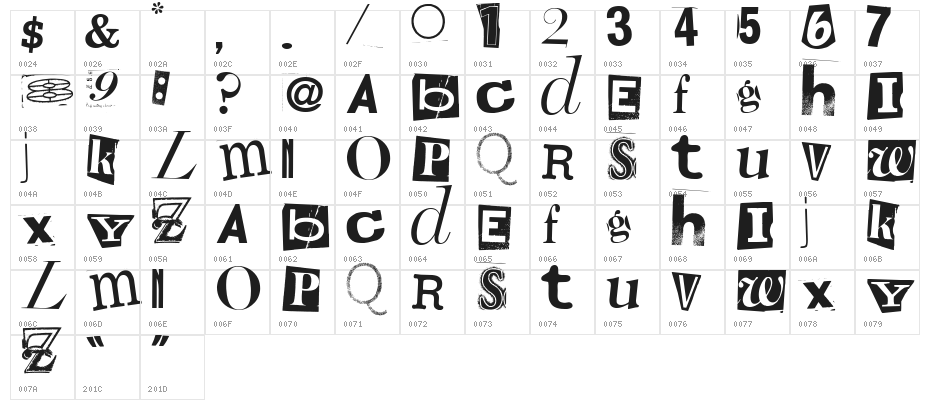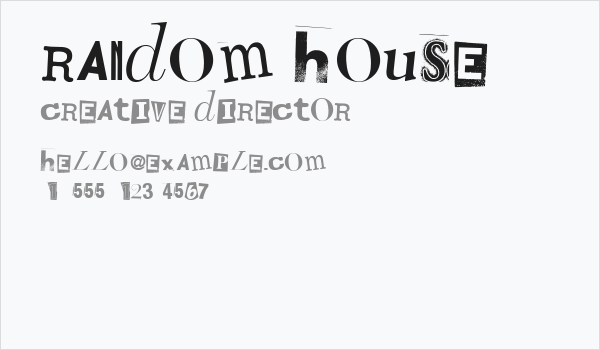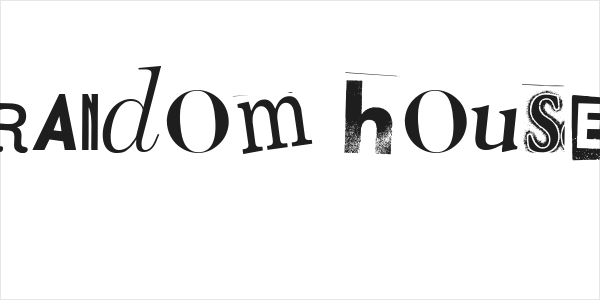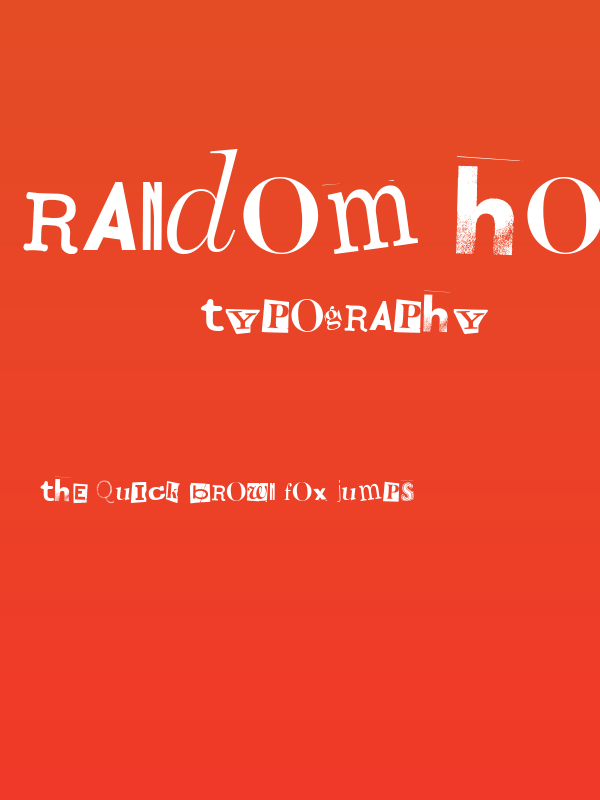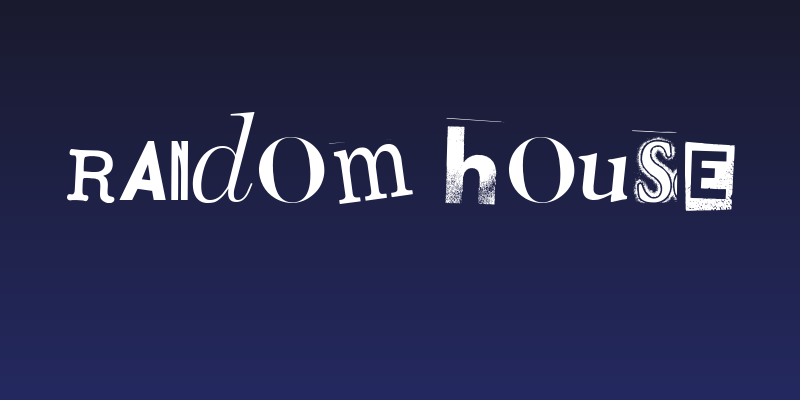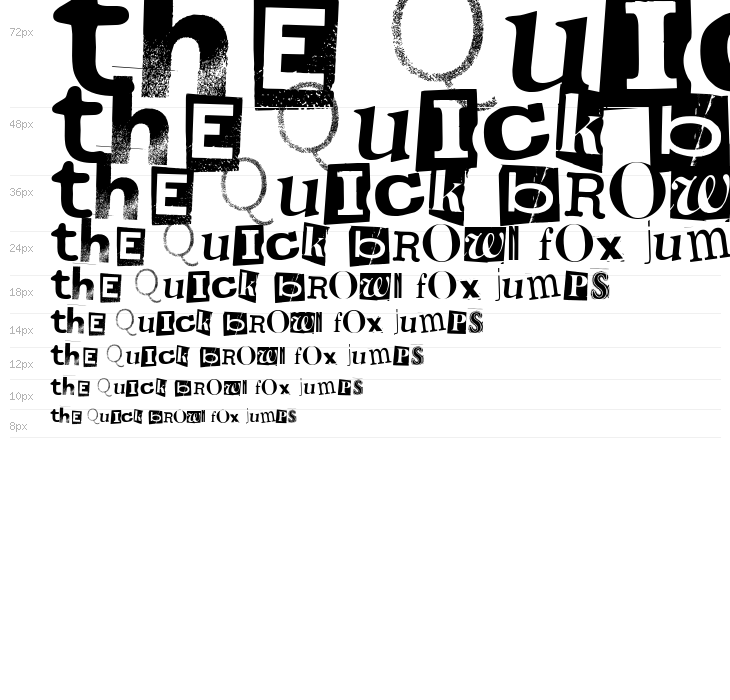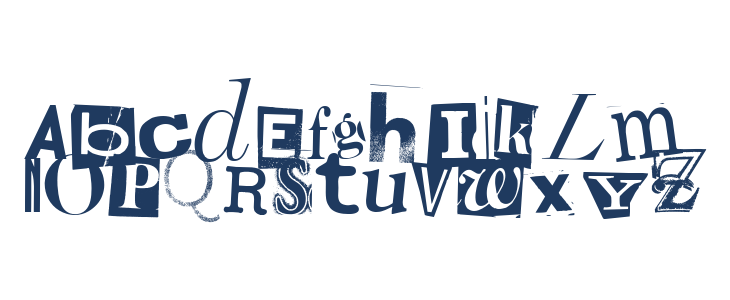
Random House Font
Random House Description
This font is a playful and eclectic mix of various styles, reminiscent of a ransom note or collage. Each character appears to be cut from different sources, creating a unique and chaotic visual experience. The uppercase and lowercase letters, as well as numbers and symbols, all exhibit a variety of textures, weights, and styles, ranging from serif to sans-serif, and even script-like forms. The overall appearance is deliberately mismatched, with some characters featuring bold outlines, others with distressed textures, and some with decorative elements. This font is designed to grab attention and convey a sense of creativity and unpredictability.
| Use Case | Headlines, Artistic projects, Posters |
| Proposed Projects | Ideal for creative projects such as posters, album covers, and artistic flyers where a bold, unconventional look is desired. |